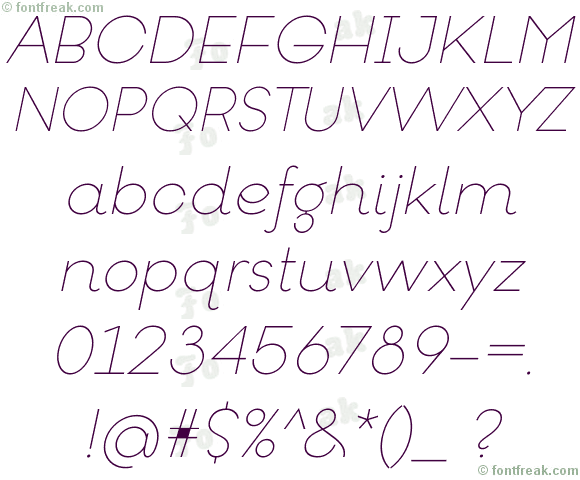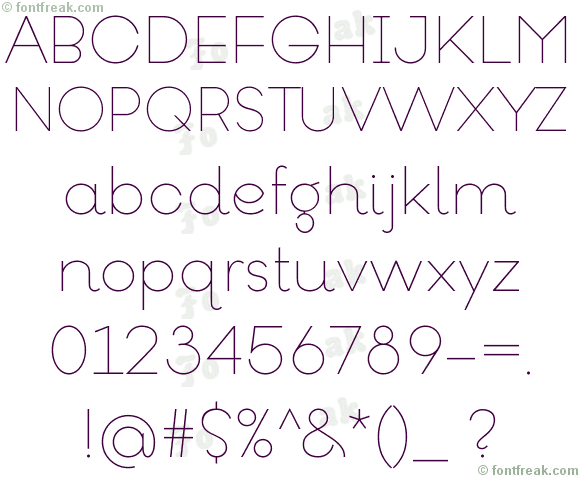
Goeslim Italic
Goeslim
Goeslim Italic, designed by Situjuh Nazara and released in 2017 under a freeware license, is a modern sans-serif font that beautifully combines elegance with readability. This font exhibits a slender and refined stroke weight, offering a harmonious balance of contrast that enhances its aesthetic appeal. The graceful italic style introduces a dynamic feel, making it suitable for a variety of design applications. The spacing is thoughtfully crafted, ensuring clarity and legibility while maintaining an air of sophistication.
This versatile font shines in several specific use cases. It is an excellent choice for wedding invitations, where its elegant curves can convey romance and charm. In restaurant menus, Goeslim Italic can elevate the overall dining experience, providing a contemporary touch that aligns with modern culinary themes. Movie posters benefit from its striking appearance, grabbing attention while still allowing for easy readability of titles and credits. Additionally, it serves well in branding materials for small businesses, where a fresh and inviting font can attract customers. Content creators will also find this font ideal for social media graphics, adding a stylish flair to their visual storytelling.
Targeting graphic designers, small business owners, and content creators, Goeslim Italic offers a unique blend of sophistication and approachability. Its free availability makes it an appealing option for those looking to enhance their projects without breaking the bank. The Goeslim Italic font free download allows users to explore its aesthetic qualities and apply them across various mediums, ensuring that their designs stand out. This font distinguishes itself with its sleek, modern look and versatile applications, making it a valuable addition to any designer's toolkit.